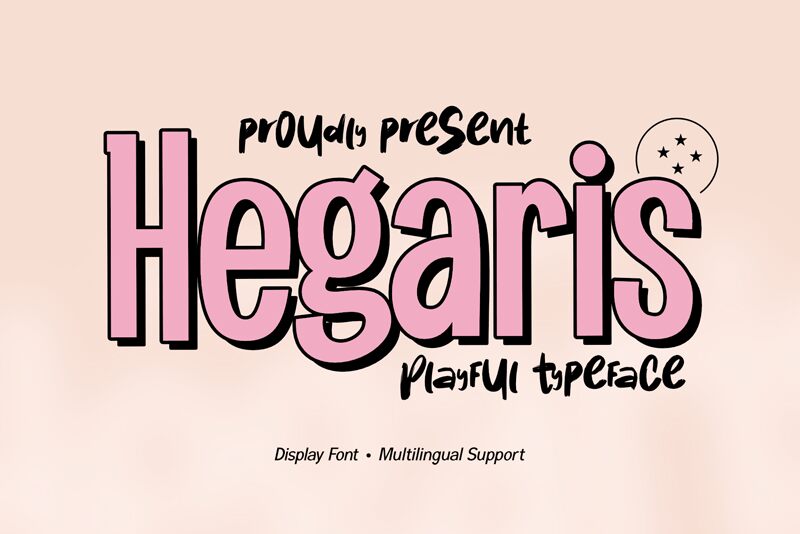
Hegaris, designed by the creative DumadiStyle, stands as a playful yet powerful display font that commands attention. Its cartoon style exudes a sense of fun and whimsy, making it an ideal choice for projects that aim to convey joy and creativity. The condensed width of Hegaris adds to its distinctive character, allowing for impactful messaging in spaces where economy of space is key.
The font's bold lines are balanced with playful curves, giving it a friendly appeal without sacrificing legibility. This blend of aesthetics makes Hegaris versatile enough for various applications such as logo design, children's books, game interfaces, and captivating headlines.
With its unique style and appearance, Hegaris is more than just a typeface-it's a gateway to engaging designs that resonate with audiences looking for something fresh and delightful. Whether you're crafting an animated film title or branding for a startup company aiming to stand out in the crowd, Hegaris offers the perfect mix of charm and clarity that will bring your creative visions to life.